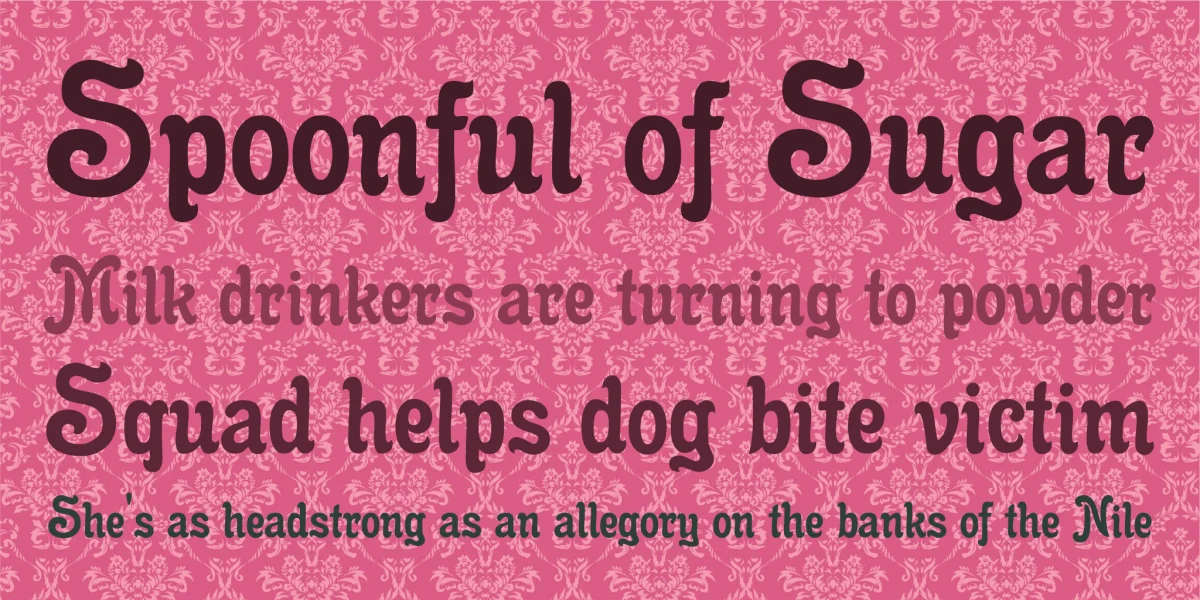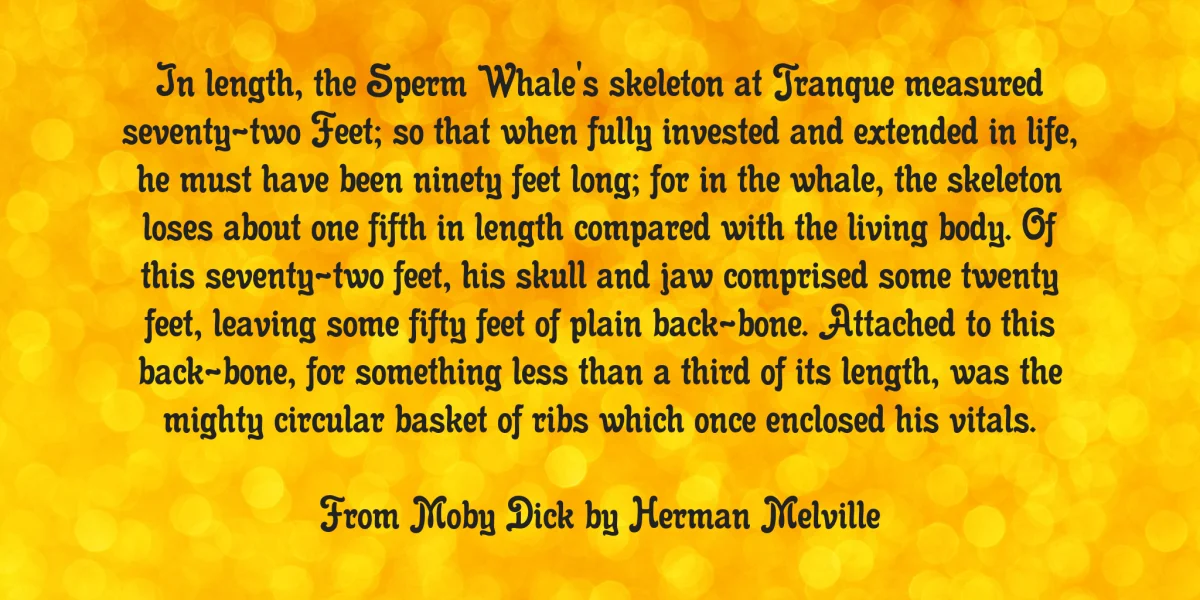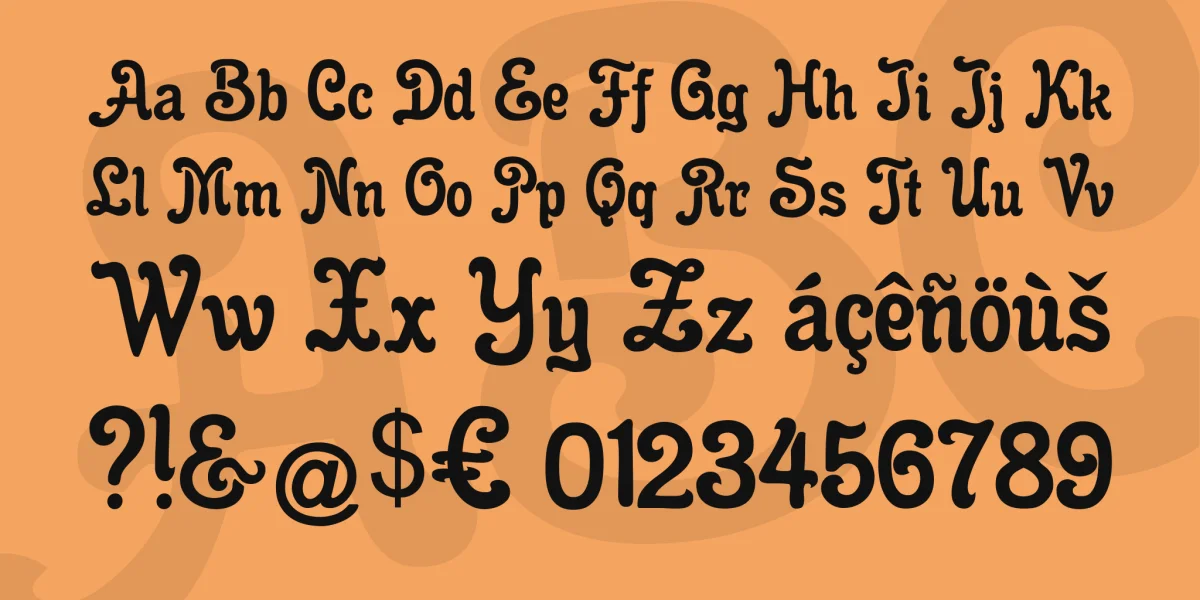
Translated from the original German description: In 1898 the foundry Emil Gursch published the typeface Gloria. A font, with clear brushwork already hinting at Art Nouveau style. I believe this font is a good alternative for the quite overused font Arnold Böcklin. Unfortunately, I had to reinvent punctuation- and special characters for this font, since I wasn't able to find any original artwork in which these characters were displayed. Nevertheless, I believe that with my inventions also can live quite well.